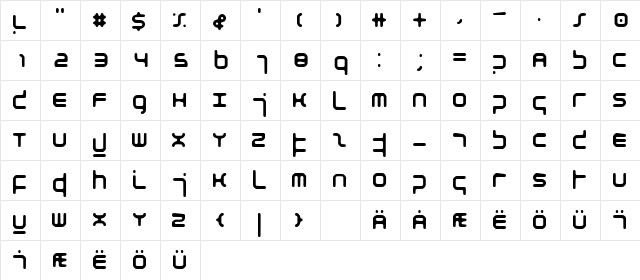
Atmosphere Round
Design Context for Atmosphere Typeface
Atmosphere softens its letterforms with rounded terminals, giving it an approachable, friendly quality that works well in consumer-facing and digital contexts.
Well-suited to UI design, mobile interfaces, and any brand that wants approachability without sacrificing clarity.
Font Pairing: Pairs well with a rounded or humanist sans for body copy, maintaining the friendly tone without relying on Atmosphere to carry extended reading.
Pro Tip: Use Atmosphere for UI elements, app interfaces, and anywhere a friendly, approachable tone needs to be maintained without sacrificing clarity.